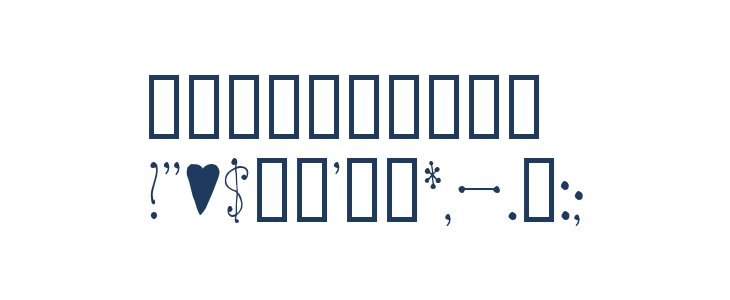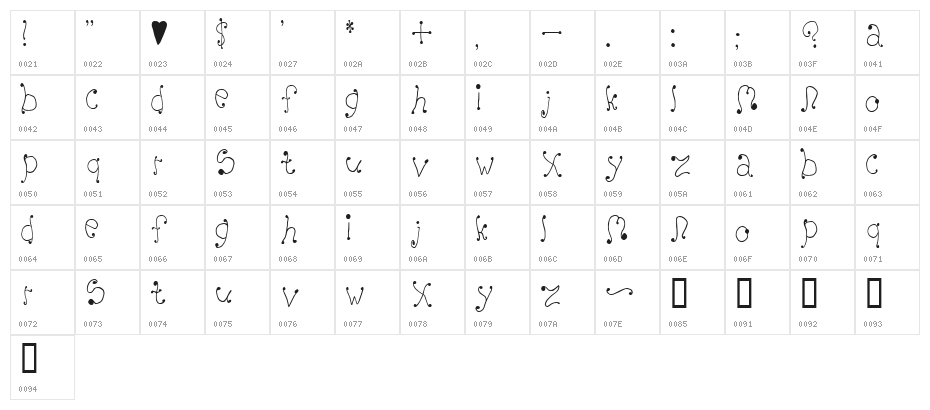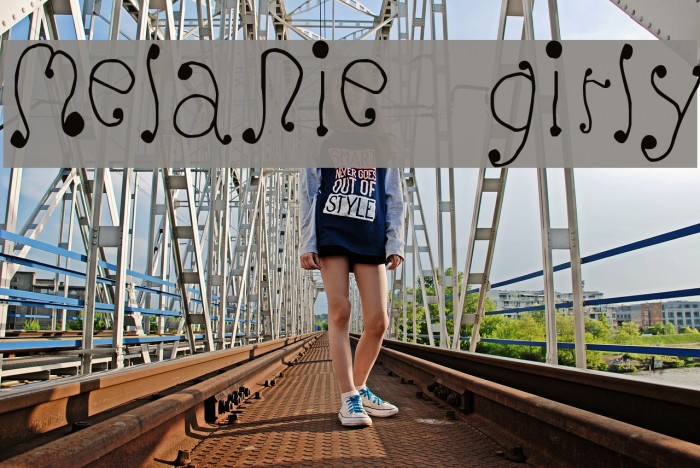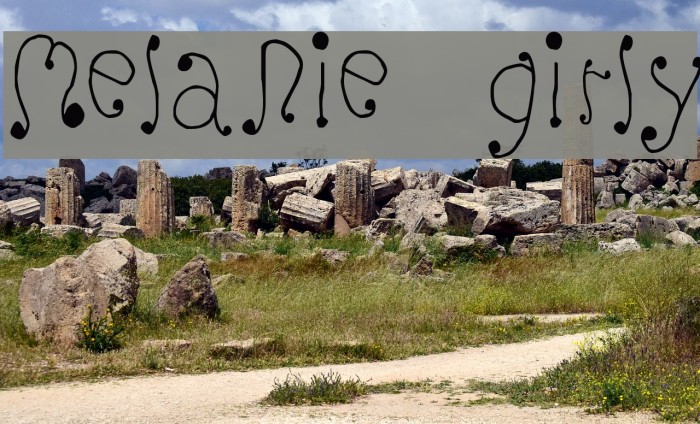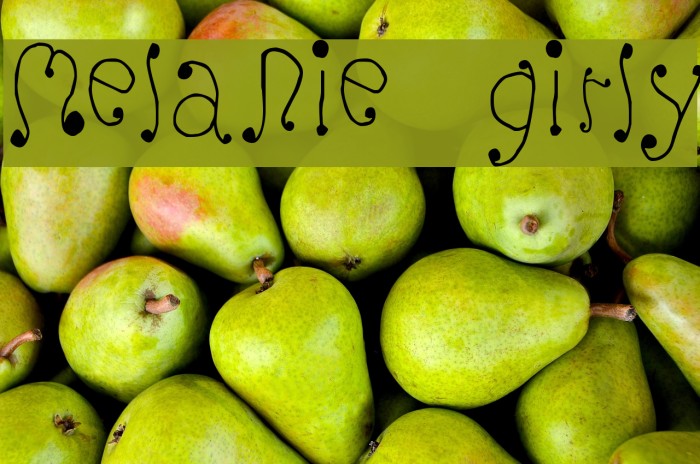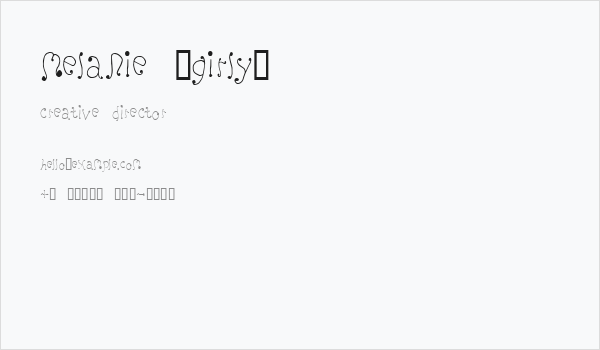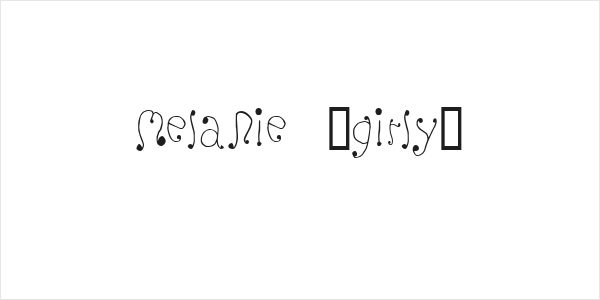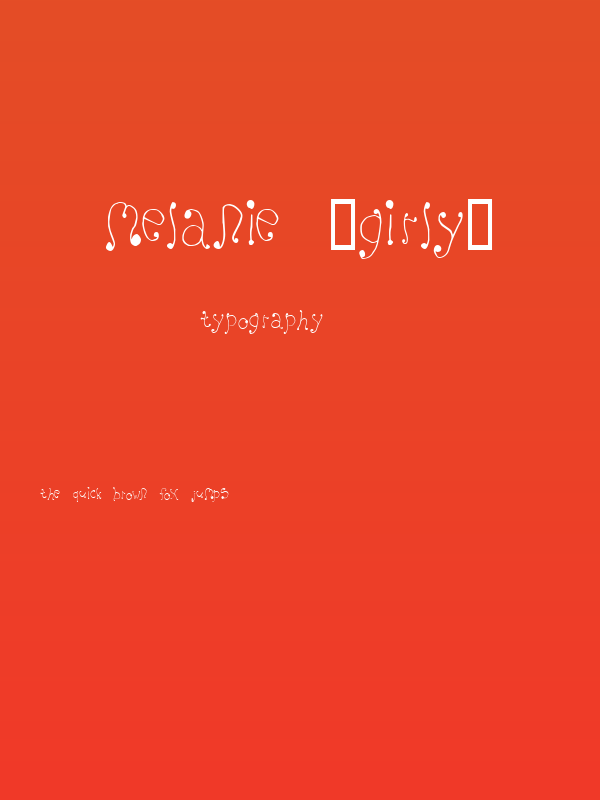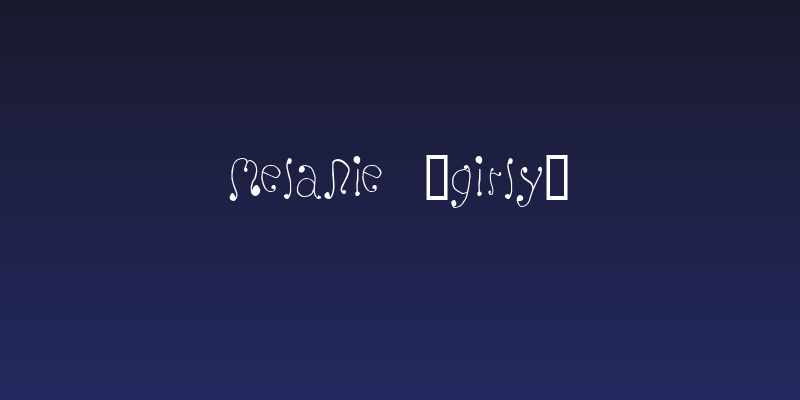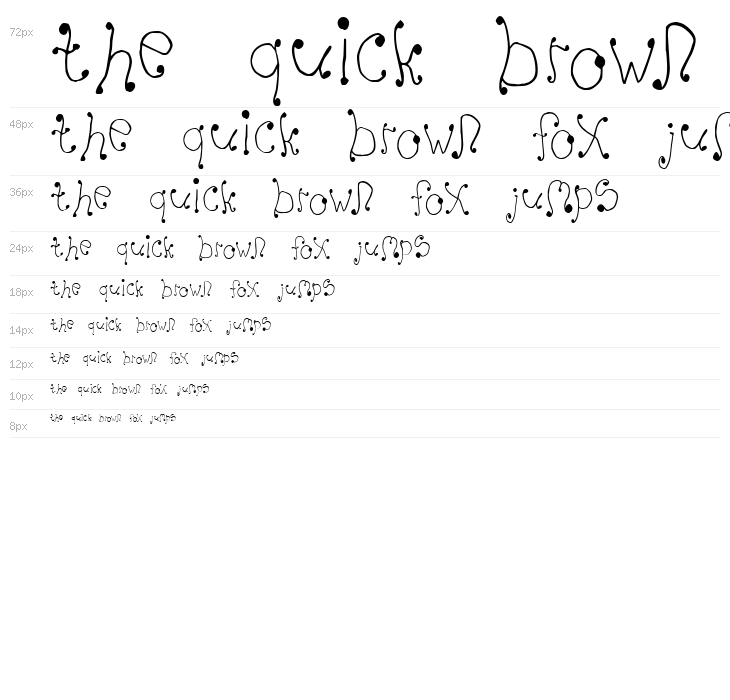
Melanie [Girly] Font
Melanie [Girly] Description
This font features a whimsical and playful design, characterized by its curvy and flowing letterforms. Each character is adorned with unique, decorative elements that add a touch of elegance and charm. The strokes are thin, with occasional bold dots that accentuate the ends of certain letters, creating a dynamic and lively appearance. The overall style is reminiscent of a handwritten script, yet maintains a structured and consistent form throughout the alphabet. The font includes both uppercase and lowercase letters, as well as a selection of special characters, making it versatile for various design needs.
| Proposed Projects | Ideal for greeting cards, invitations, children's book covers, and playful branding projects. |